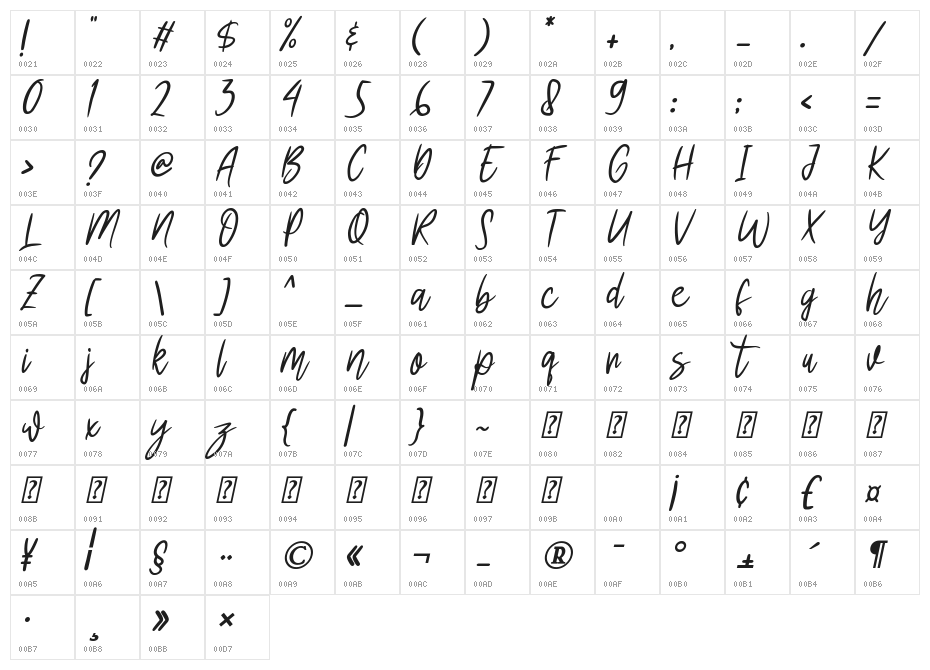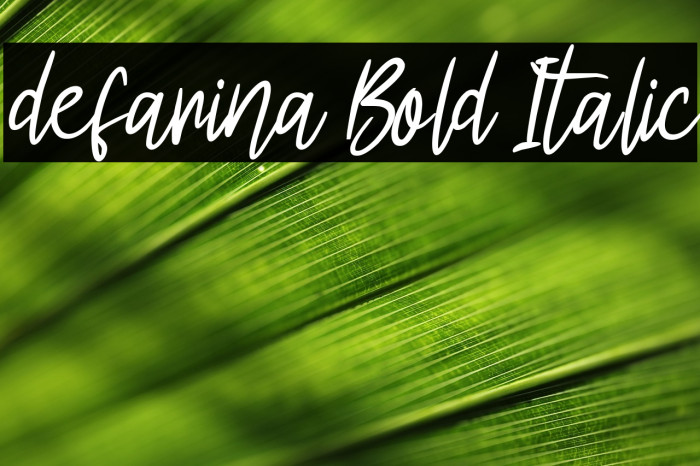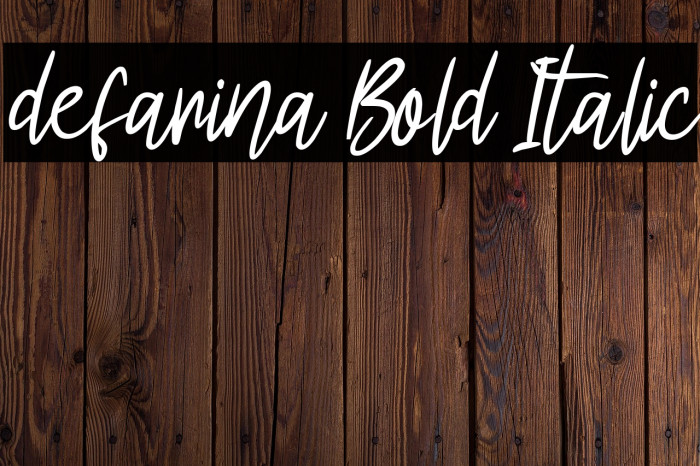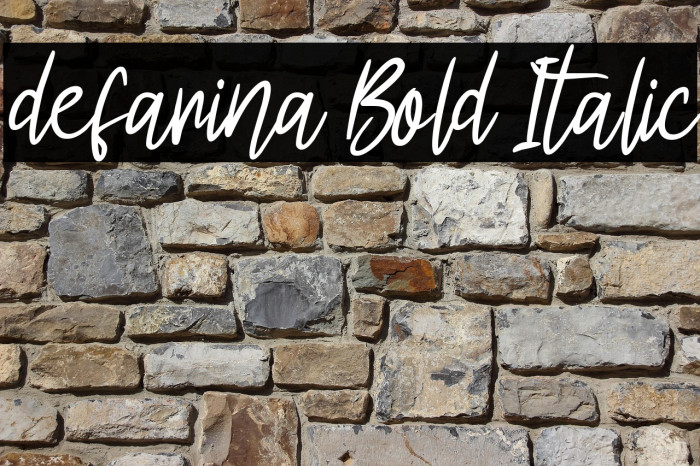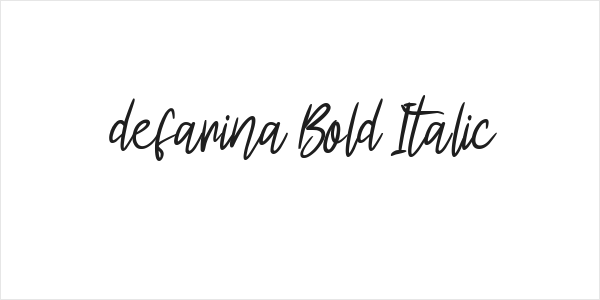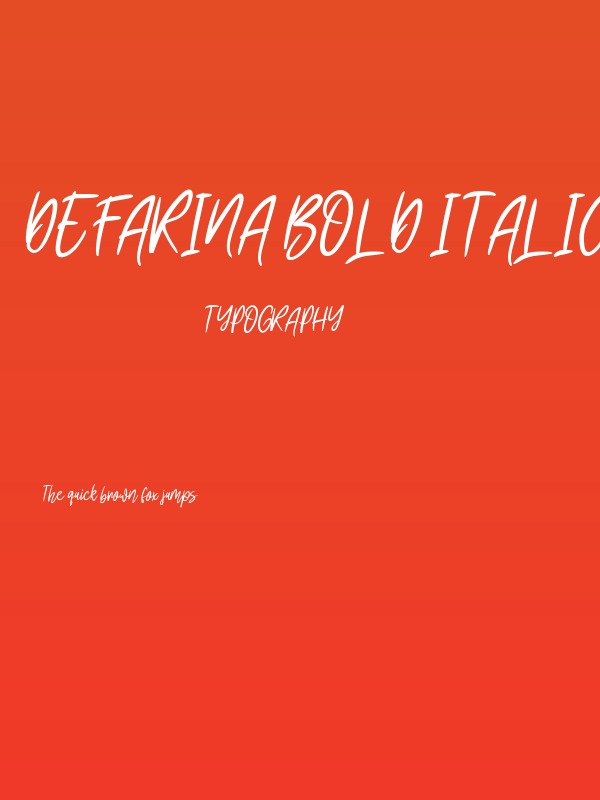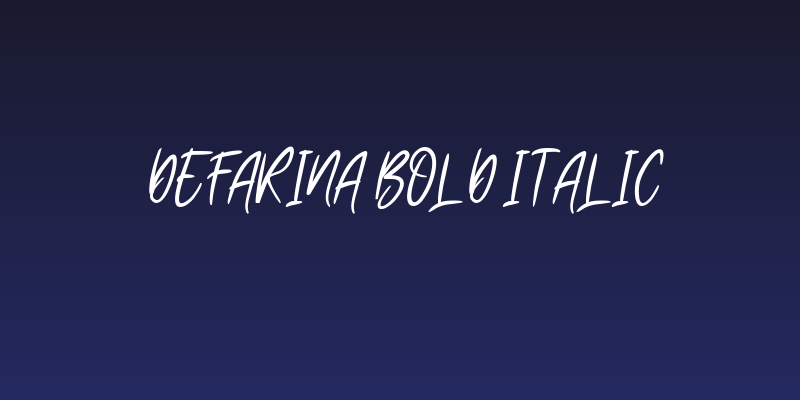
defarina Bold Italic Font
defarina Bold Italic Description
This font features a dynamic and expressive handwritten style, characterized by its bold and italicized strokes. The letters are fluid and connected, giving a sense of motion and energy. The uppercase and lowercase letters maintain a consistent style, with a slight slant that enhances the italic effect. The numbers and special characters are crafted with the same attention to detail, ensuring uniformity across the font. The overall appearance is casual yet sophisticated, making it suitable for creative and artistic projects.
| Proposed Projects | Ideal for greeting cards, invitations, branding, and artistic projects requiring a personal touch. |